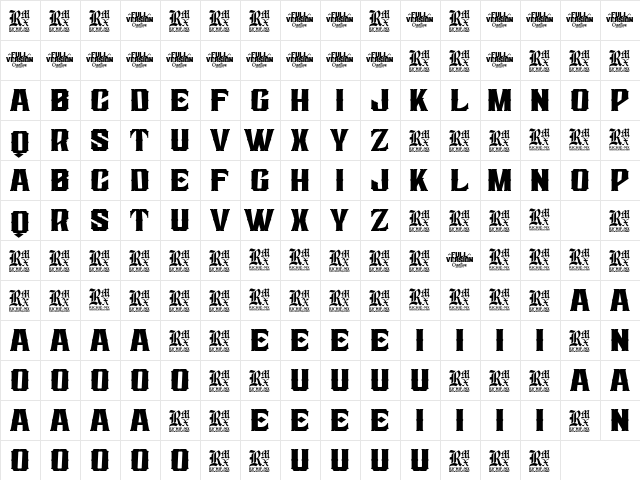
Business Regular
Design Context for Business Typeface
Business offers clean, dependable letterforms without strong stylistic allegiance, making it a practical choice for designers who need flexibility.